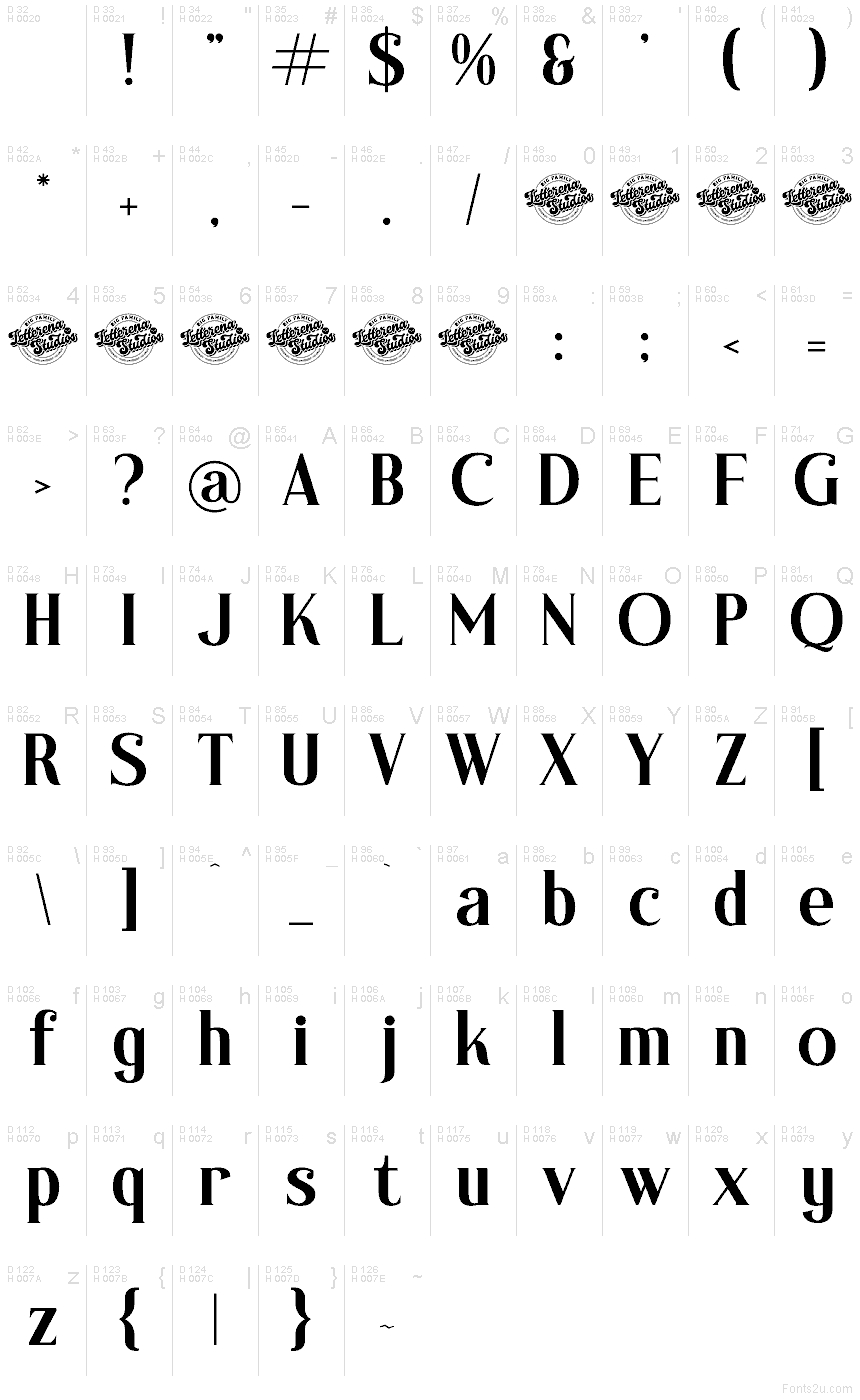
Gikefta DEMO VERSION
Gikefta font by Letterena Studios is a classic serif font that embodies sophistication and elegance. With refined strokes and traditional influences, it brings a timeless charm to your projects. Its balanced design delivers readability and an aesthetic appeal, making it versatile for diverse applications.
This free serif font is perfect for website headers, book covers, logos, branding materials, magazines, invitation cards, certificates, blogs, advertisements, corporate identities, or stationery designs.